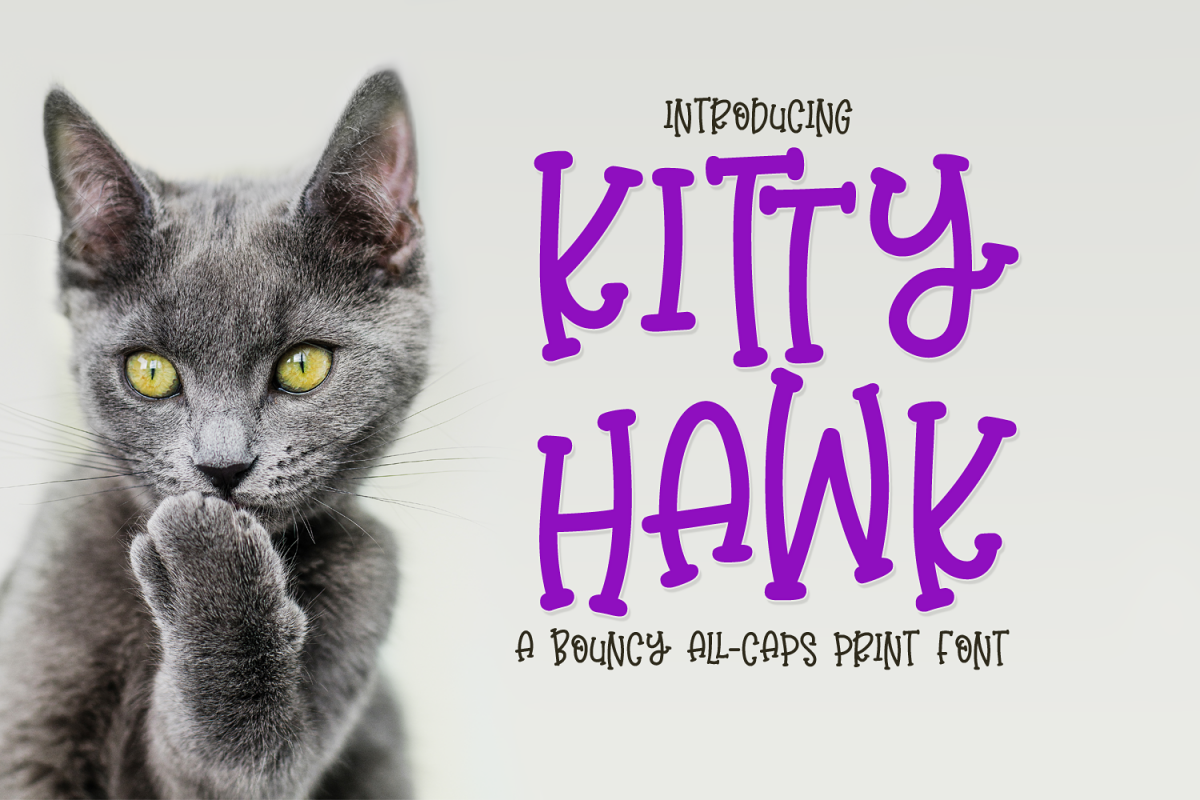
Kitty Hawk - a bouncy all-caps print
Kitty Hawk
Kitty Hawk is a bouncy all-caps handwritten font.
The font includes capital alphabet letters, accent alphabet, numbers and symbols, punctuation and ligatures.
This font is great for logos, t-shirt designs, decals, and more!